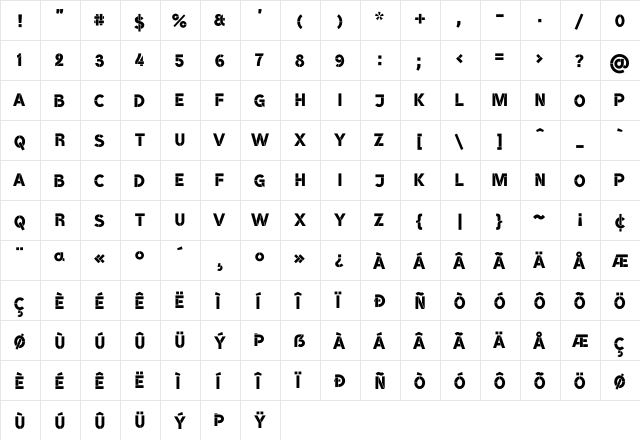
BroshK Medium Font Preview
BroshK Medium
BroshK Medium Font Details
| Foundry | gluk |
| Designer | gluk |
Design Context for BroshK Typeface
BroshK takes a measured approach to typography — its balanced proportions and neutral character make it a reliable workhorse for both digital and print work.